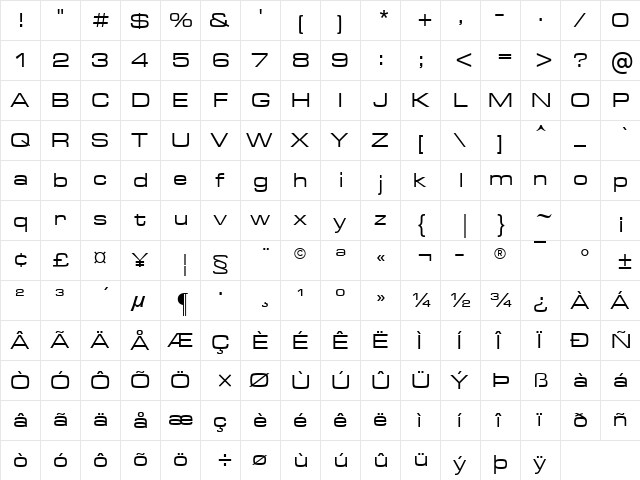
Metrostyle Extended Regular
Design Context for Metrostyle Extended Typeface
Metrostyle Extended offers clean, dependable letterforms without strong stylistic allegiance, making it a practical choice for designers who need flexibility.